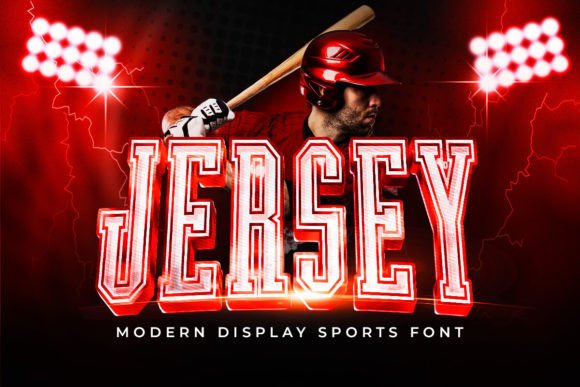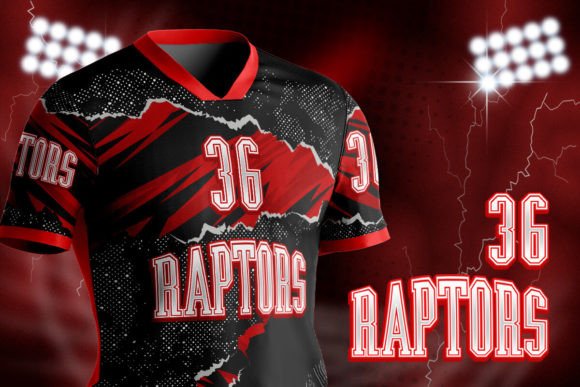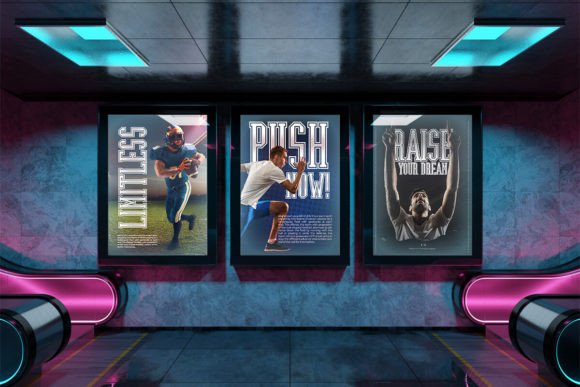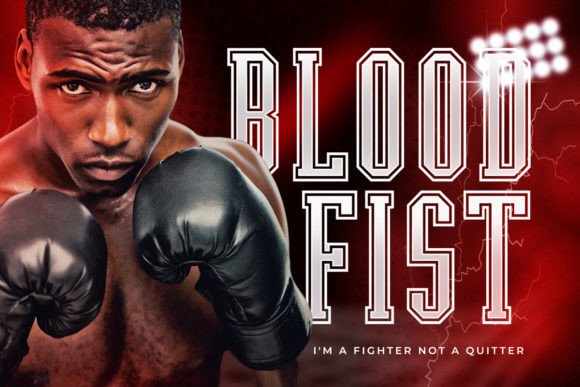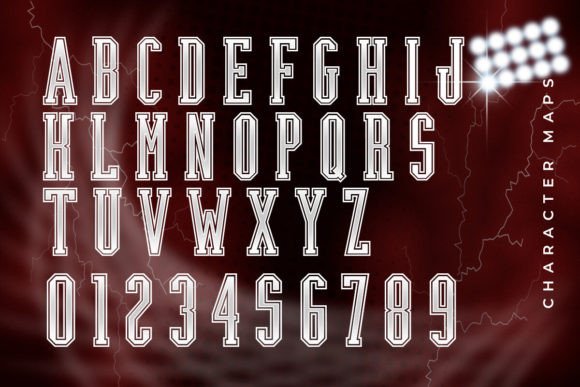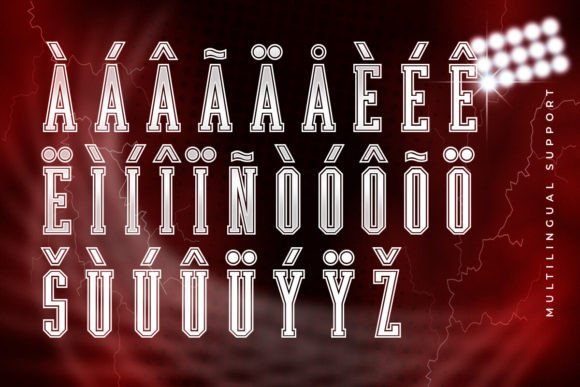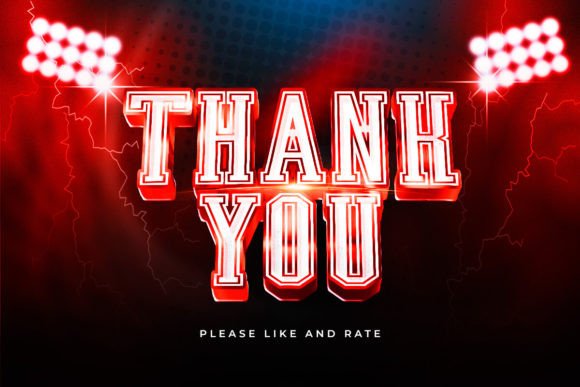
Jersey Font
Jersey is a bold and dynamic display font designed to capture the excitement and energy of sports. Inspired by the classic look of athletic jerseys, this font features strong, blocky letterforms that are perfect for sports team logos, event banners, and competitive branding. Its robust design ensures high visibility and impact, making it ideal for jerseys, merchandise, and promotional materials. Elevate your sports-related projects with Jersey, and bring a powerful, athletic flair to your designs.